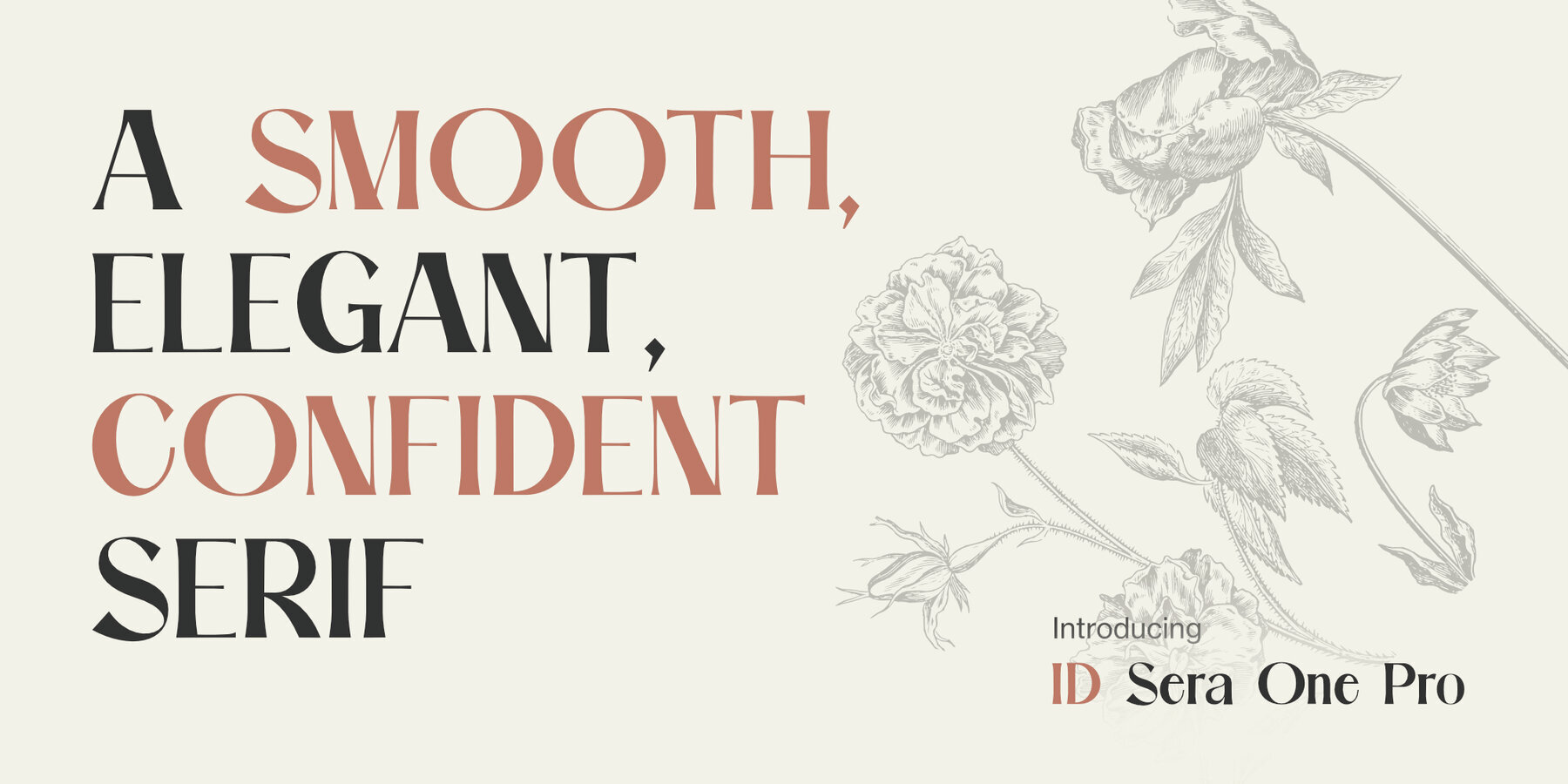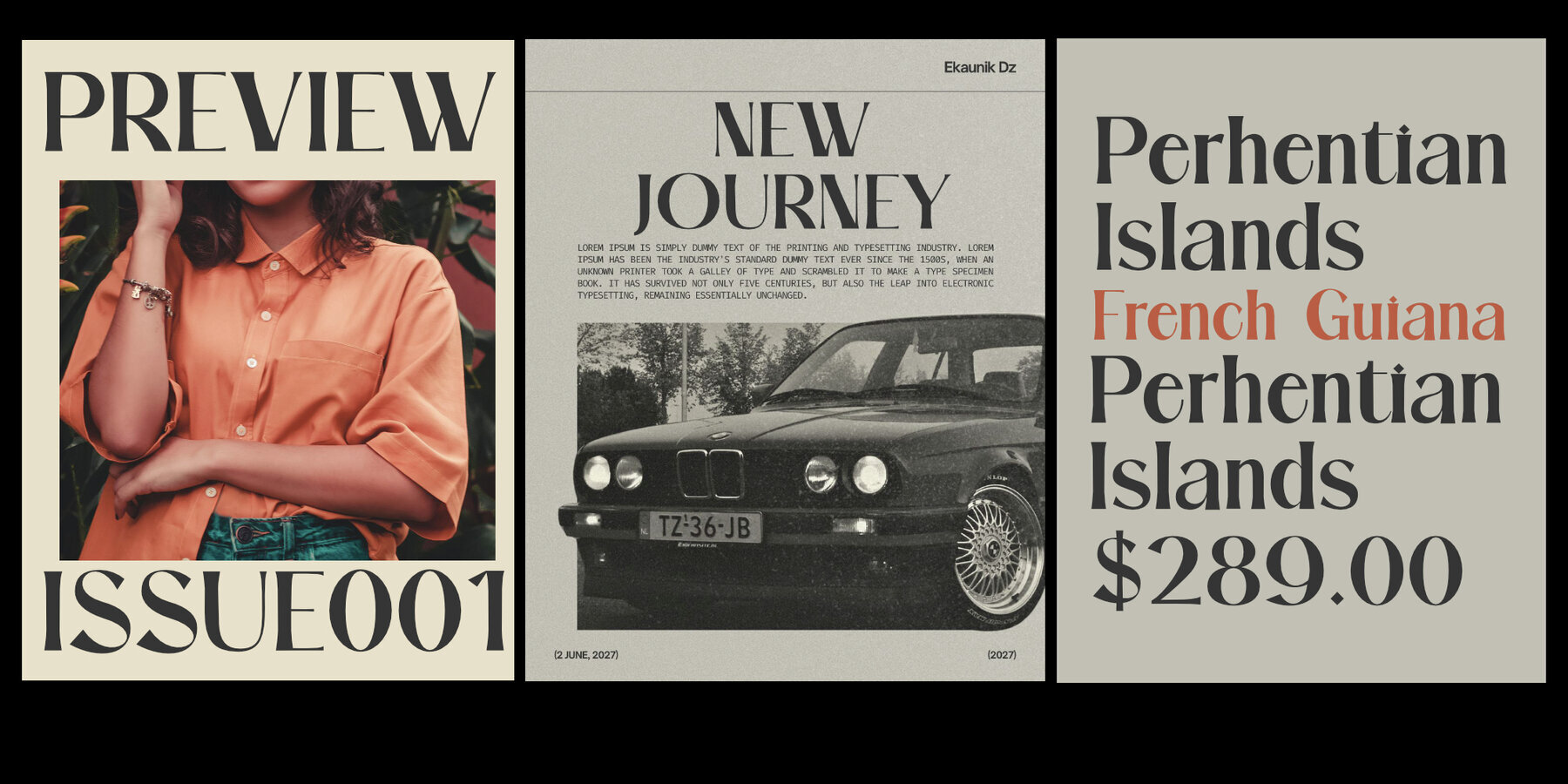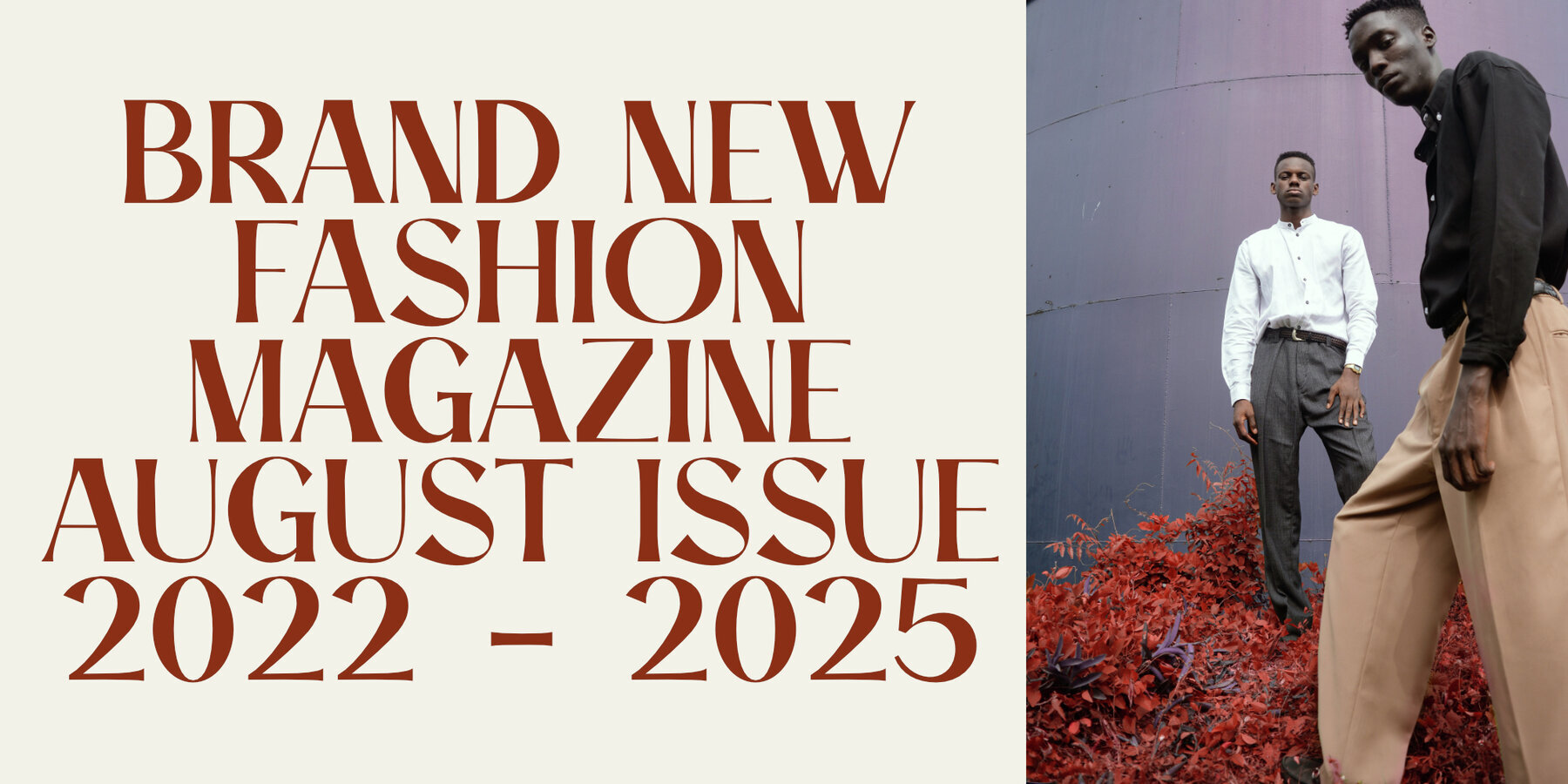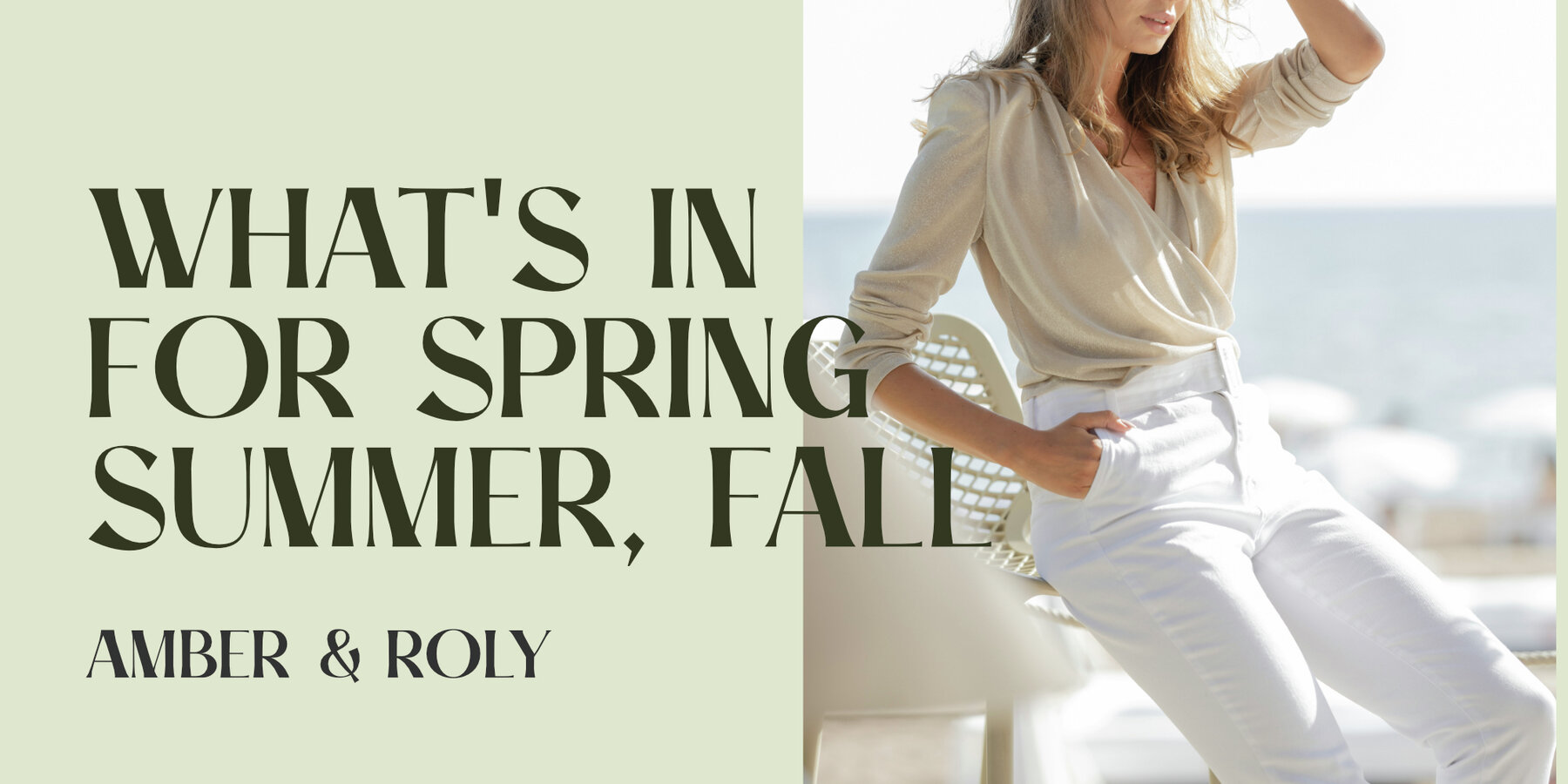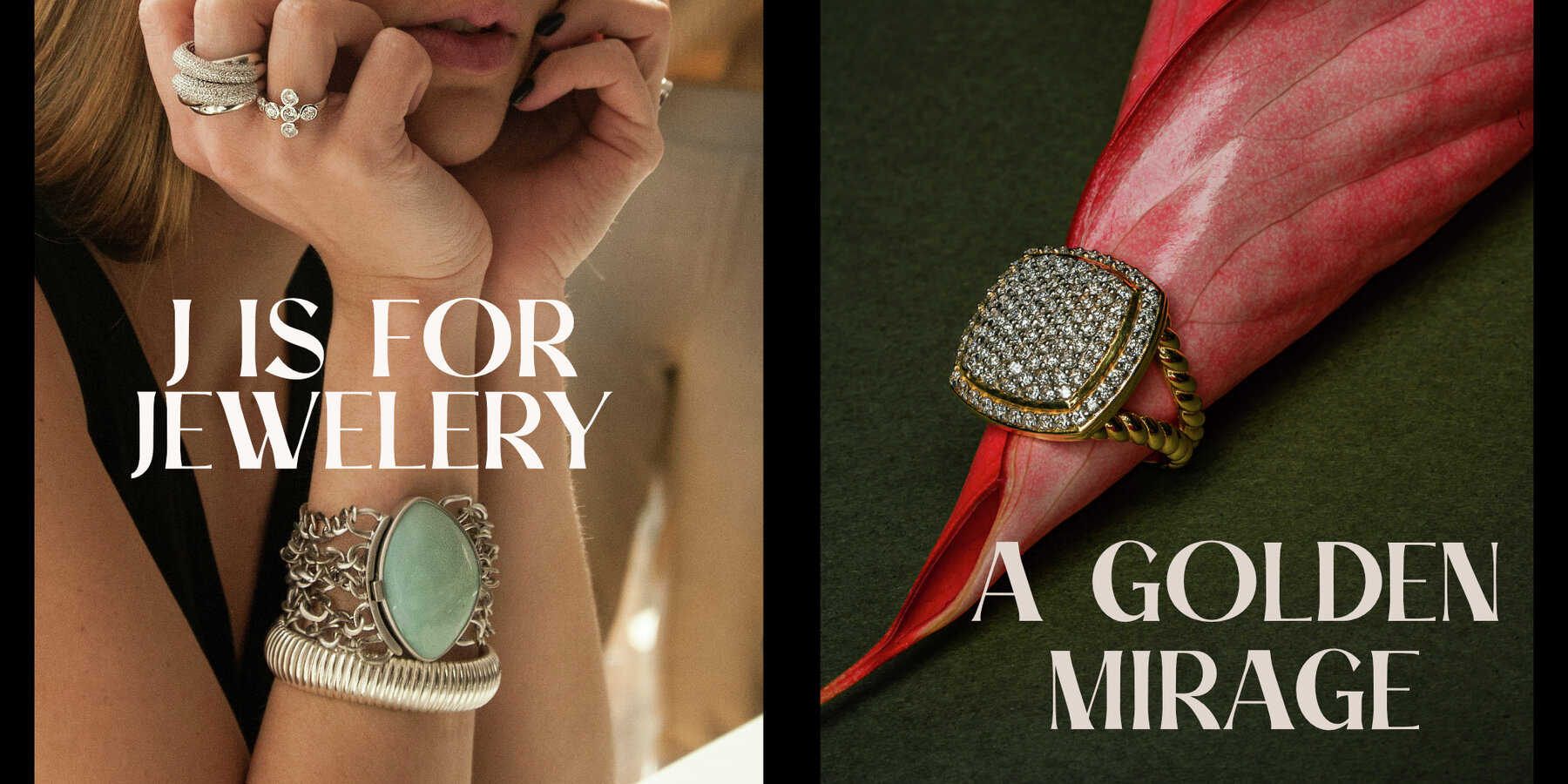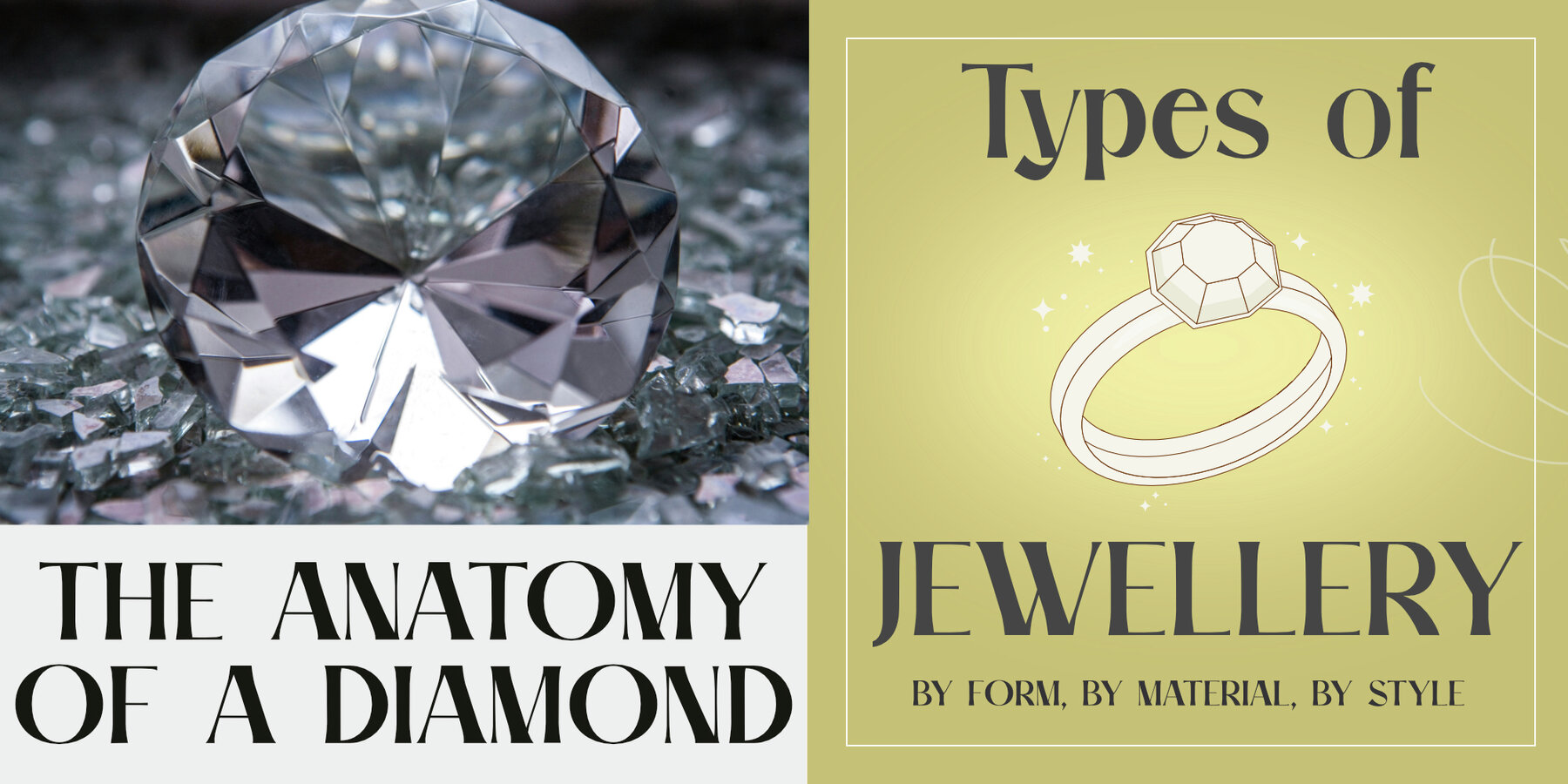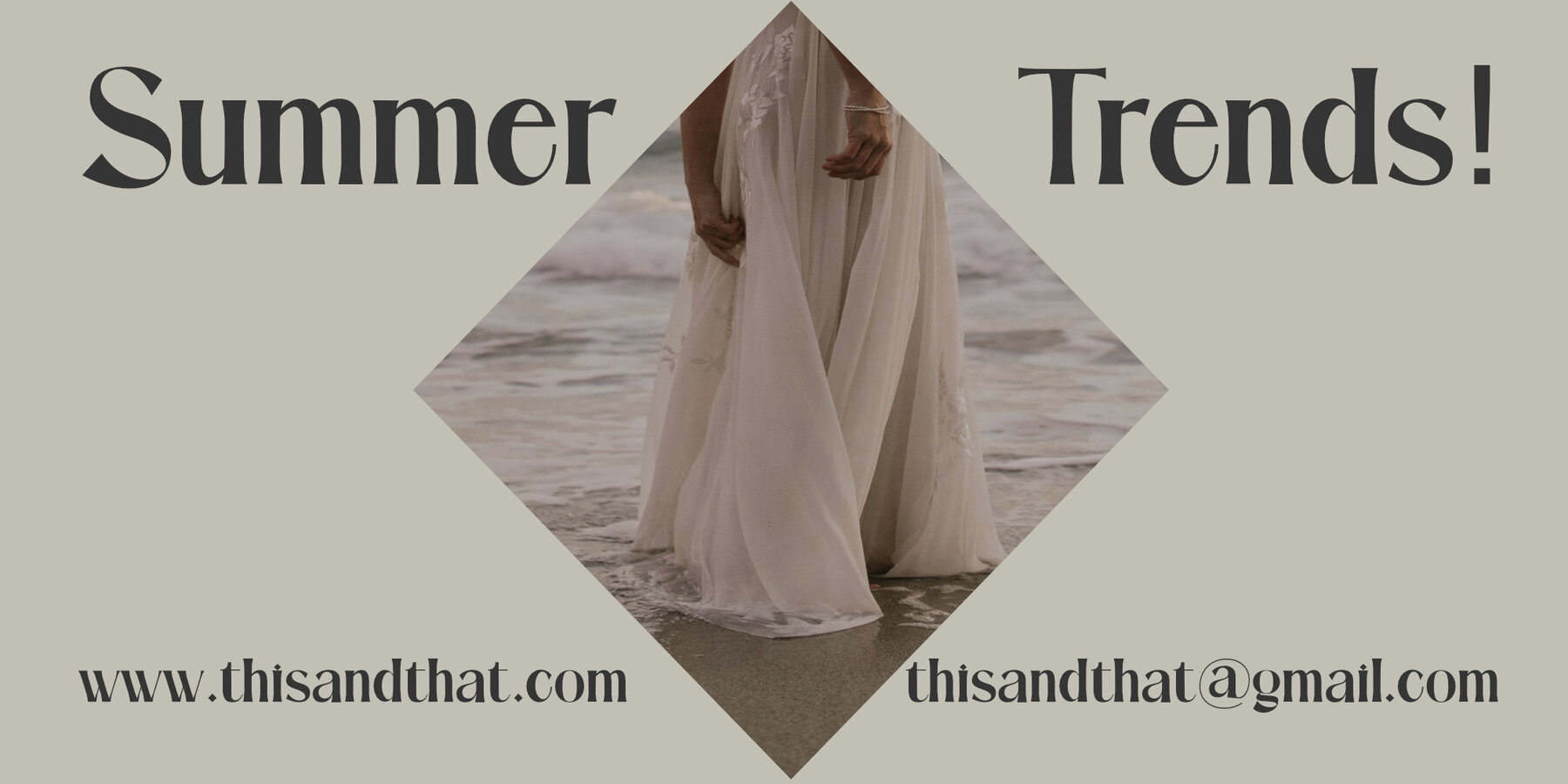
ID Sera One Pro Font
ID Sera One Pro Regular
Sera One Pro is a refined serif font designed for modern creatives who value sophistication. Its high-contrast strokes provide a sense of vintage charm, while expressive letterforms bring subtle playfulness to every project. The distinct design ensures each character catches the eye, making Sera One Pro well-suited for headlines, editorial layouts, and branding. This typeface balances unique style with functional versatility. Whether working on print materials, digital campaigns, or refined packaging, Sera One Pro adds clarity and elegance. Its reliable design supports legibility, giving your work a polished edge in any setting.Sera One Pro – Confident Serif with Vintage Elegance